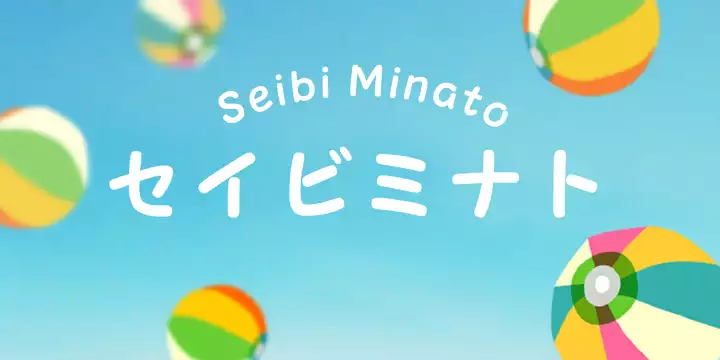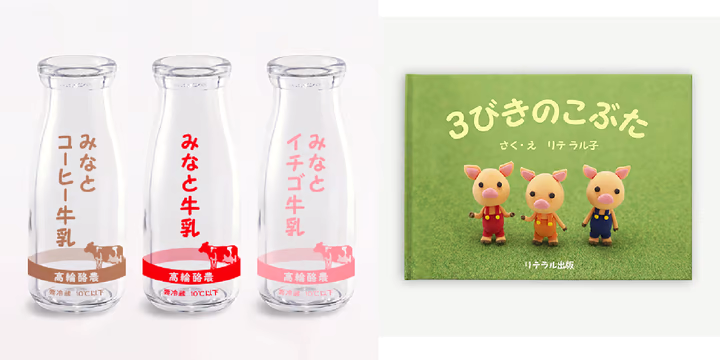
Seibi Minato Font
Designed for the covers of children’s literature and picture books, this is a freehand-style, rounded gothic typeface that conveys warmth and softness. It has also been sold as a font for use in-game software.
Seibi Minato Font is a Typeface font that brings a professional and versatile look to your projects. Designed for the covers of children’s literature and picture books, this is a freehand-style, rounded gothic typeface that conveys warmth and softness.